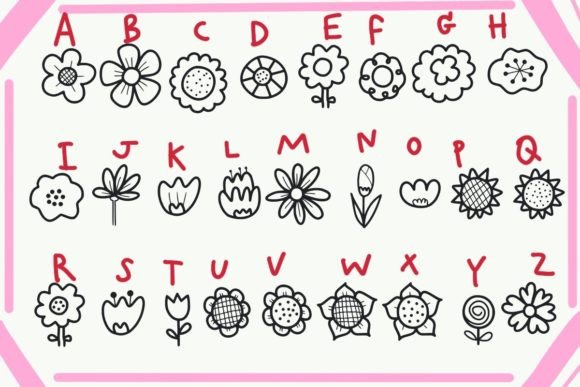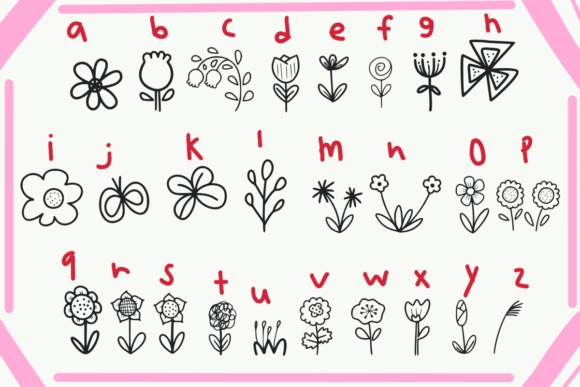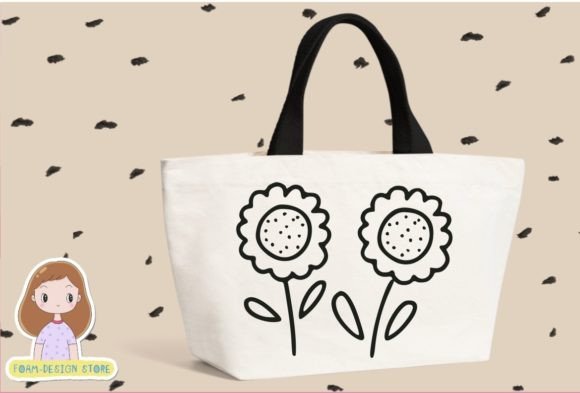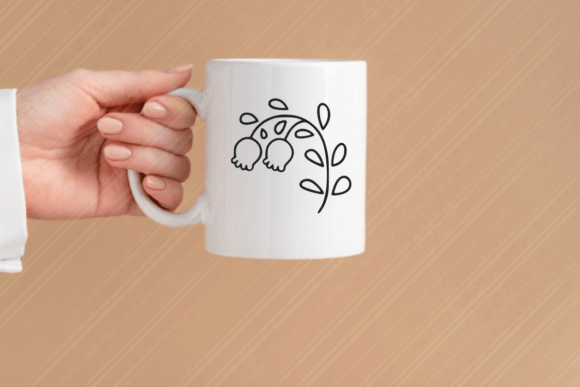
Introducing Flowers Font: The Perfect Hand-Drawn Dingbats for Creative Designs
Are you a designer, crafter, or digital artist looking for a unique and versatile font to elevate your creative projects? Look no further than Flowers Font, a charming hand-drawn dingbats font that’s perfect for a wide range of applications. From planners and greeting cards to digital designs and presentations, Flowers Font is the ideal addition to your creative toolkit.
What is Flowers Font?
Flowers Font is a carefully crafted, hand-drawn dingbats font that features an adorable collection of flowers, leaves, and other botanical elements. Each character is meticulously designed to be both visually appealing and highly versatile, making it easy to incorporate into your designs. Whether you’re creating digital art, crafting planners, or making greeting cards, Flowers Font is sure to add a touch of whimsy and charm to your work.
Key Features of Flowers Font
- Hand-drawn with love: Each character in Flowers Font is carefully hand-drawn with attention to detail, ensuring a unique and personal touch.
- Cute and playful: The font features adorable flowers, leaves, and other botanical elements that are sure to bring a smile to your face.
- Highly versatile: Flowers Font can be used for a wide range of creative projects, from digital designs and presentations to planners, greeting cards, and more.
- Easy to use: With its clear and simple design, Flowers Font is easy to read and use, even for beginners.
Uses for Flowers Font
Flowers Font is an incredibly versatile font that can be used for a wide range of creative projects. Here are just a few ideas to get you started:
- Planners and organizers: Add a touch of personality to your planners and organizers with Flowers Font.
- Greeting cards and invitations: Create beautiful, one-of-a-kind greeting cards and invitations with Flowers Font.
- Digital designs and art: Use Flowers Font to add a unique touch to your digital designs and art.
- Presentations and slideshows: Add visual interest to your presentations and slideshows with Flowers Font.
- Crafting and scrapbooking: Use Flowers Font to create beautiful, handmade crafts and scrapbook pages.
Why Choose Flowers Font?
With so many fonts available, why choose Flowers Font? Here are just a few reasons why designers and crafters love Flowers Font:
- Unique and eye-catching: Flowers Font is a one-of-a-kind font that’s sure to grab attention.
- Easy to use: With its clear and simple design, Flowers Font is easy to read and use.
- High-quality design: Each character in Flowers Font is carefully designed to ensure a high level of quality and consistency.
- Support for creative projects: Flowers Font is designed to support a wide range of creative projects, from digital designs to handmade crafts.
| Font Name | Flowers Font |
| Author | Foam-Design Store |
If you’re looking for a unique and versatile font to elevate your creative projects, look no further than Flowers Font. With its adorable hand-drawn design, high level of versatility, and ease of use, Flowers Font is the perfect addition to your creative toolkit. Whether you’re a designer, crafter, or digital artist, Flowers Font is sure to inspire your next creative project.